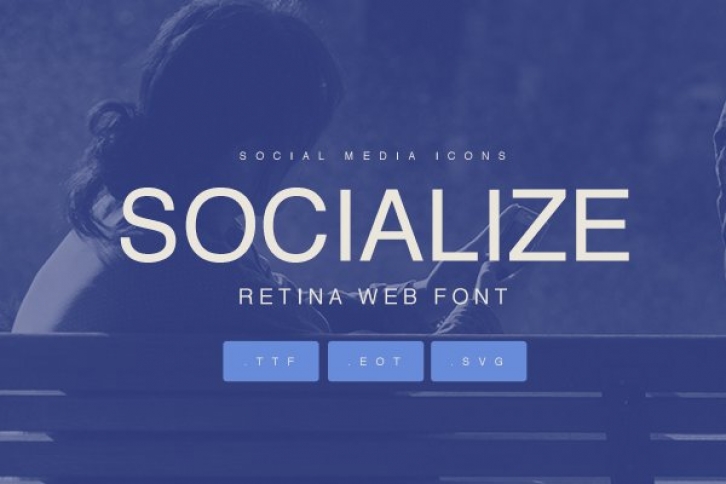
A set of 45 icons perfect social media. Each icon has been transformed into font and font web to make life easier for designers and web designers.
How it works: Enter the name of the social network and enable bandages in photoshop or illustrator and ready the text becomes icon.
Socialize icons: AMAZON - APPLE - DEVIANTART - DRIBBBLE - EMAIL - FACEBOOK - FORRST - GIT - GOOGLEDRIVE - LASTFM - LINUX - PAYPAL - PINTEREST - REDDIT - RSS - SKYPE - SOUNDCLOUD - STACKOVERFLOW - TUMBLR - VIMEO - WORDPRESS - YELP - ZERPLY - YOUTUBE - YAHOO WINDOWS - TWITTER - STUMBLE - SPOTIFY - SMASHING - SHARING - RENREN - RDIO - PICASA - MIXI - LINKEDIN - INSTAGRAM - GOOGLE - FOURSQUARE - FLICKR - EVERNOTE - DROPBOX - DIGG - BEHANCE - ANDROID